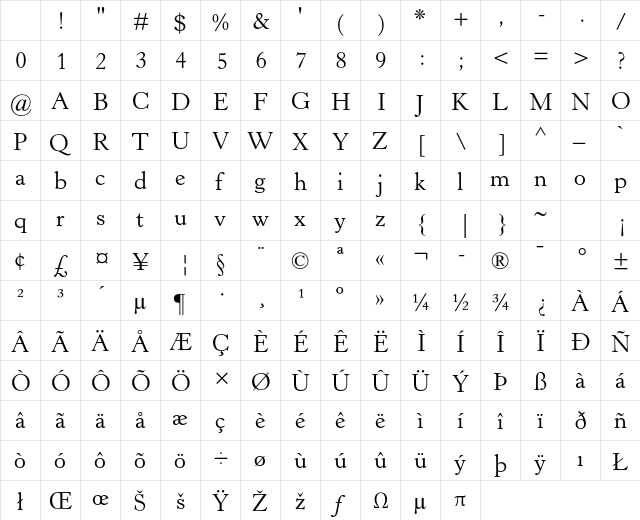
Horley Old Style MT Std Regular
Complete Horley Old Style MT Std Regular glyph index. Displaying only characters natively supported by Horley Old Style MT Std Regular font.
Design Context for Horley Old Style MT Std
Horley Old Style MT Std is a composed and adaptable typeface that performs quietly and consistently across a wide range of design contexts.